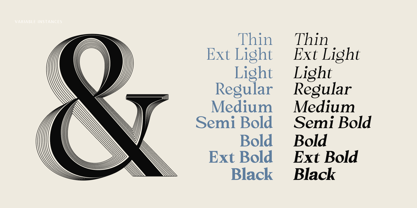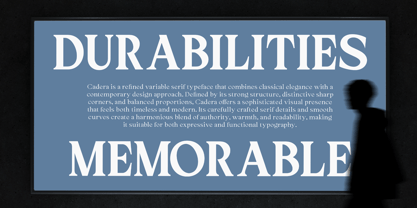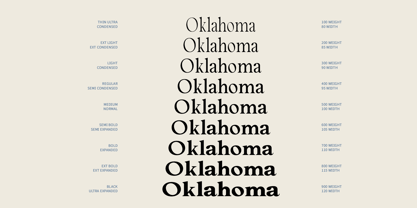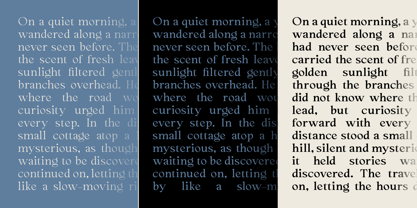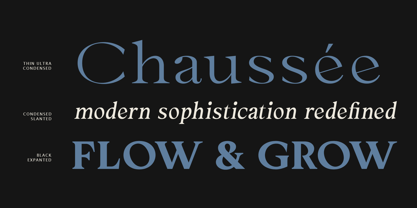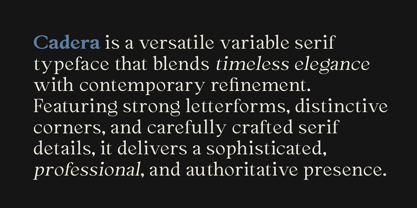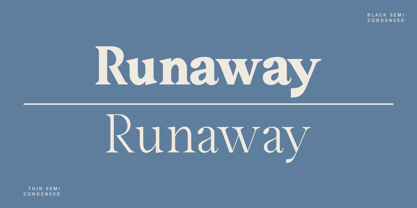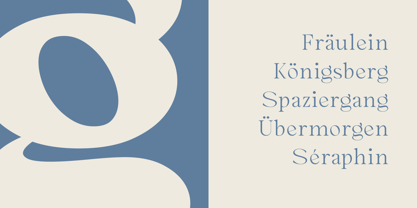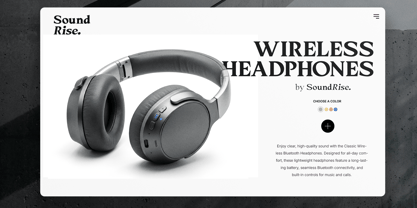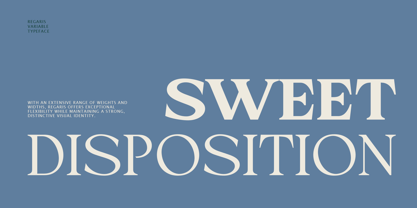
Cadera
Cadera — Essential Serif Variable
Cadera is an elegant and versatile serif variable typeface designed to bring sophistication, character, and refined editorial style to contemporary typography.
With its distinctive high-contrast forms, strong corners, graceful curves, and carefully balanced proportions, Cadera combines a timeless serif foundation with a modern, fashion-forward personality. Its expressive details make it equally effective for bold headlines and more refined typographic compositions.
Cadera features 9 weights and 9 widths, providing a wide range of possibilities from delicate and compact styles to powerful, expansive displays. The variable font format allows for smooth and precise control over weight and width, giving designers greater flexibility when creating custom typographic layouts.
Perfect for editorial design, fashion branding, luxury identities, magazines, logos, packaging, posters, advertising, book covers, websites, social media graphics, and premium brand identities, Cadera is built to adapt effortlessly across a variety of creative applications.
Whether used large as a striking headline or carefully adjusted for sophisticated layouts, Cadera delivers a polished and contemporary typographic voice while retaining the elegance of a classic serif.
Cadera is an essential serif variable designed for versatility, sophistication, and modern visual expression.
Key Features
9 Weight Variations, 9 Width Variations, Upright & Slanted Styles, Variable Font Technology, High-contrast serif construction, Elegant and distinctive letterforms. Strong, refined details, Versatile editorial character, Suitable for both display and branding applications, Designed for modern and sophisticated typography.
Ideal For
Fashion & Beauty Branding, Luxury & Premium Branding, Editorial & Magazine Design, Logos & Wordmarks, Packaging Design, Posters & Advertising, Book & Album Covers, Website & Digital Design, Social Media Graphics, Invitations & Stationery, Art Direction, Creative & Editorial Layouts.
Cadera — A refined serif system built to move between elegance and expression.